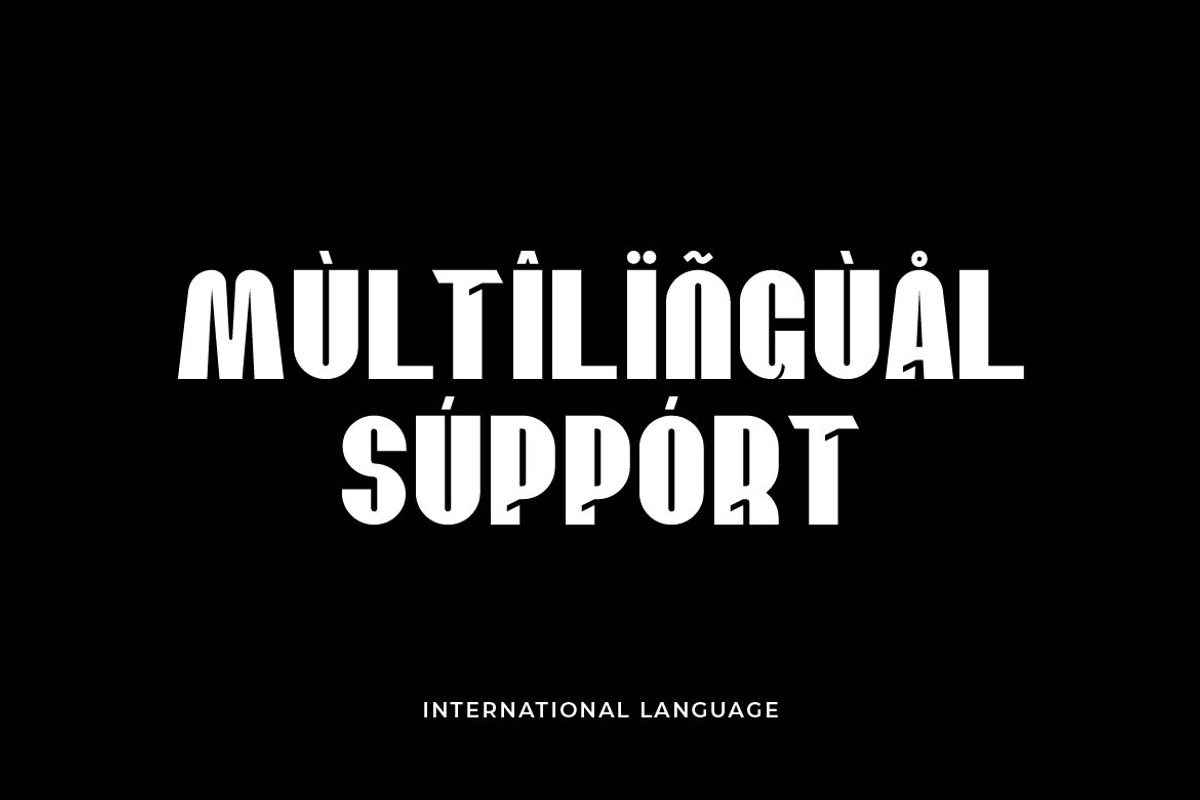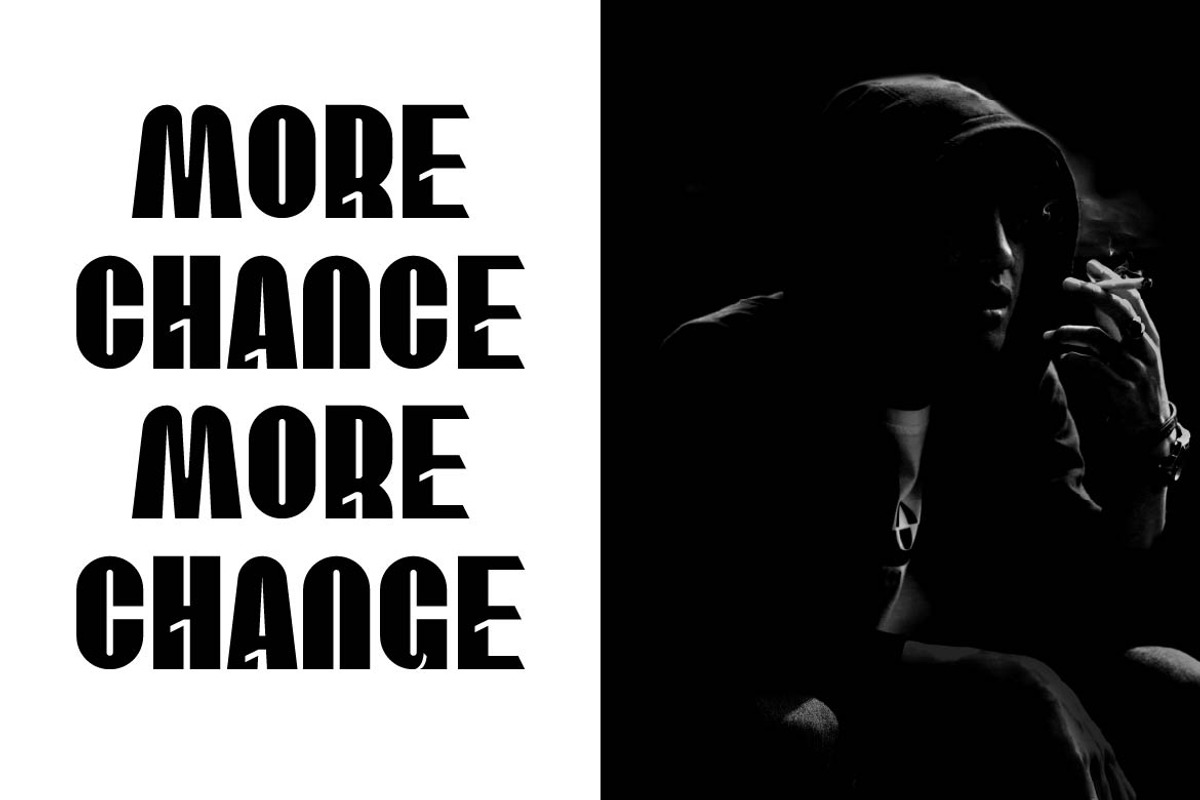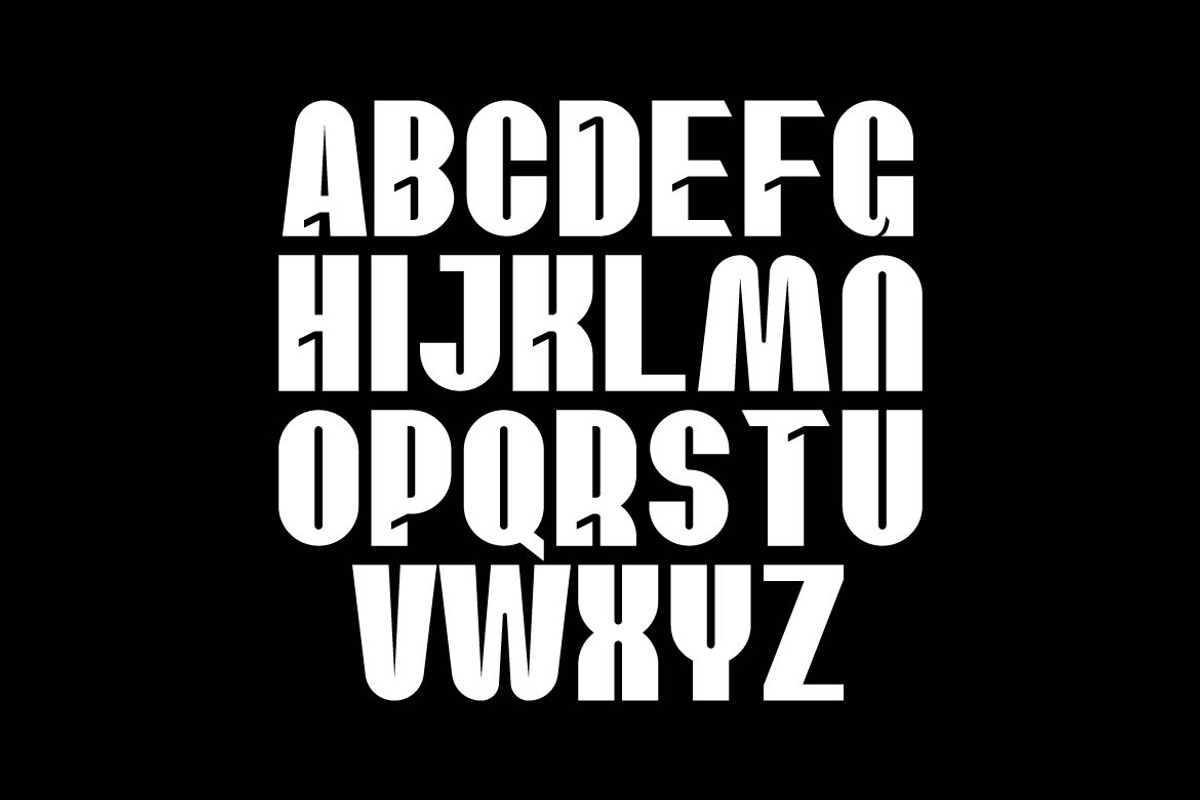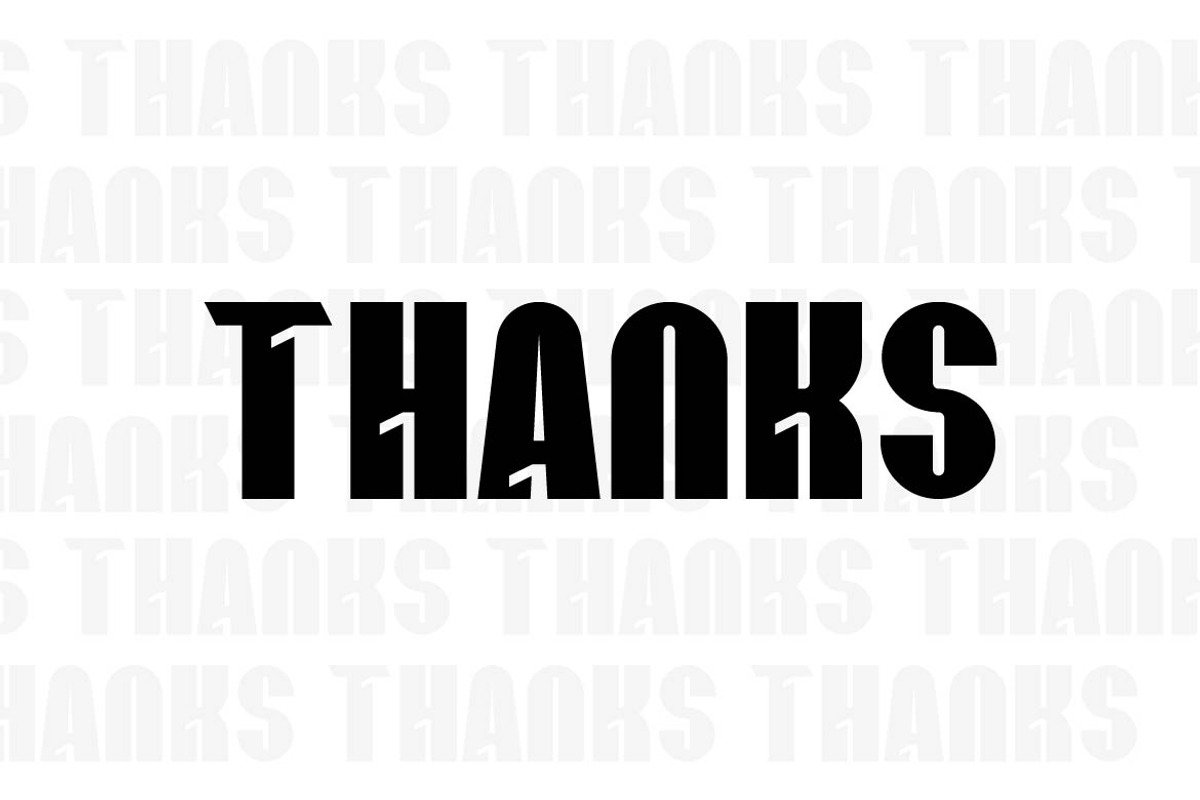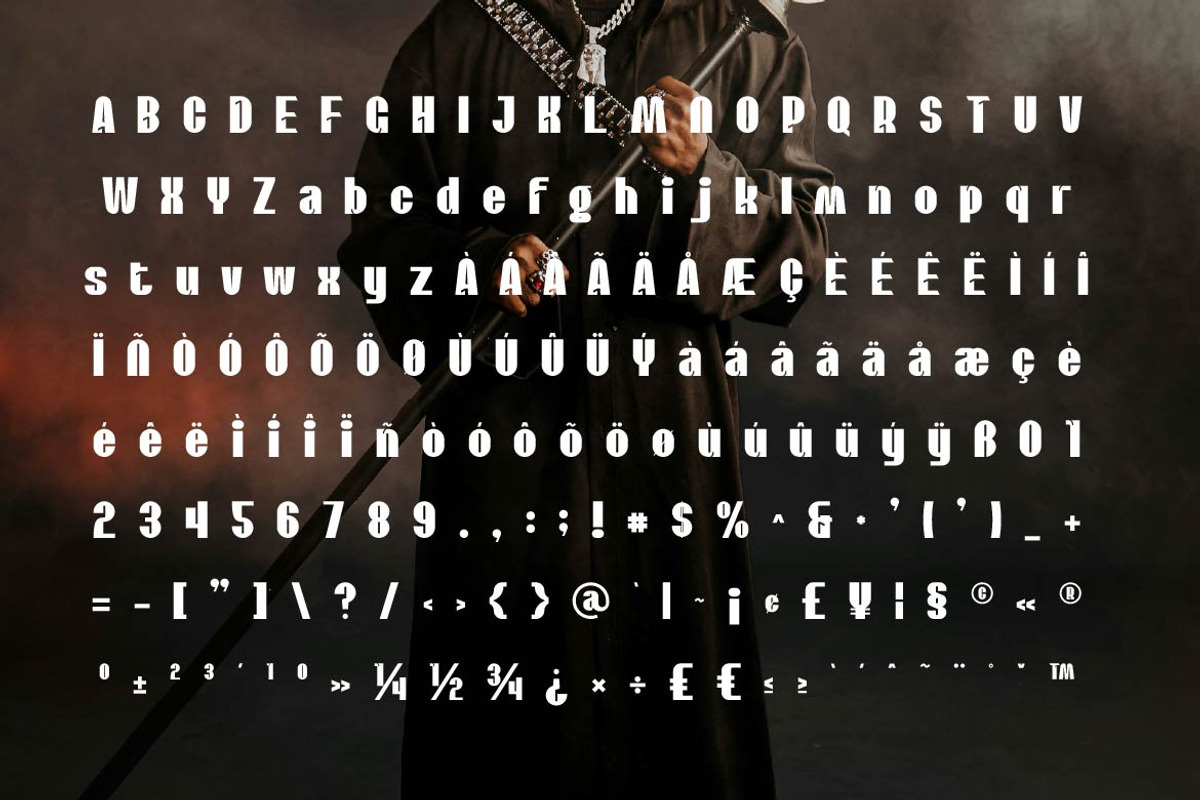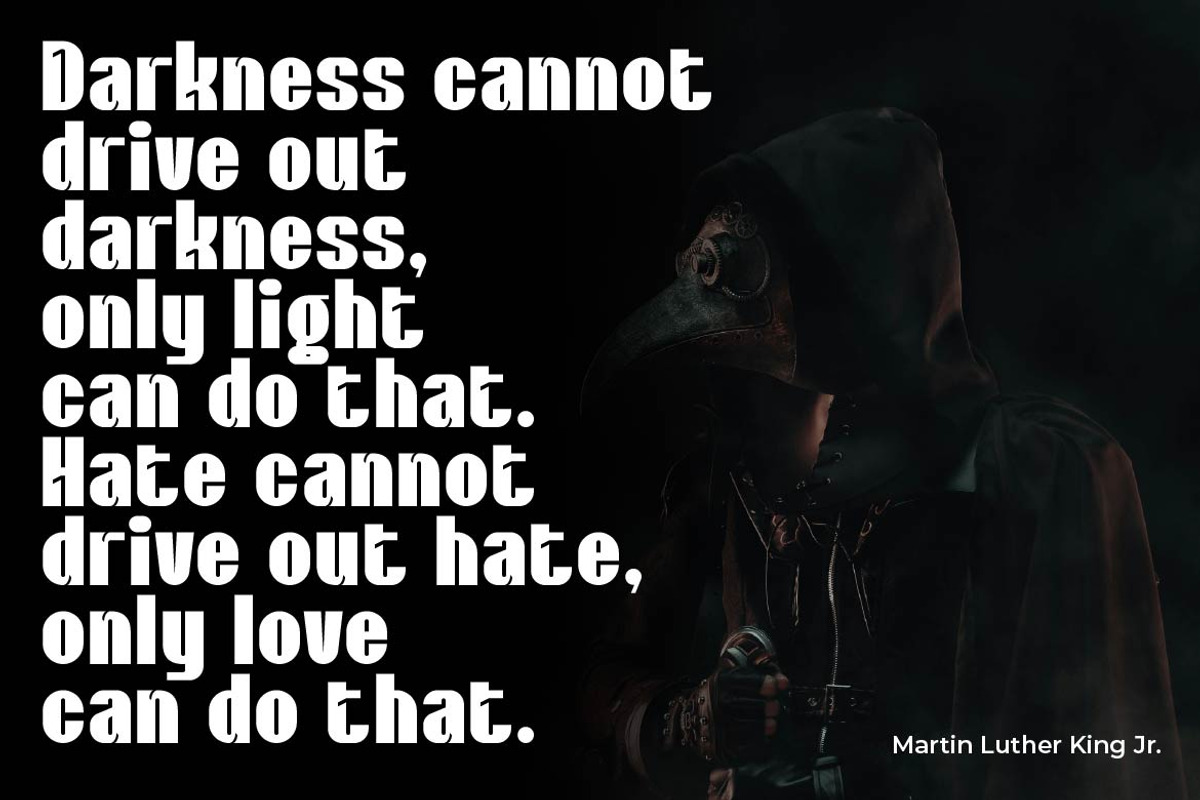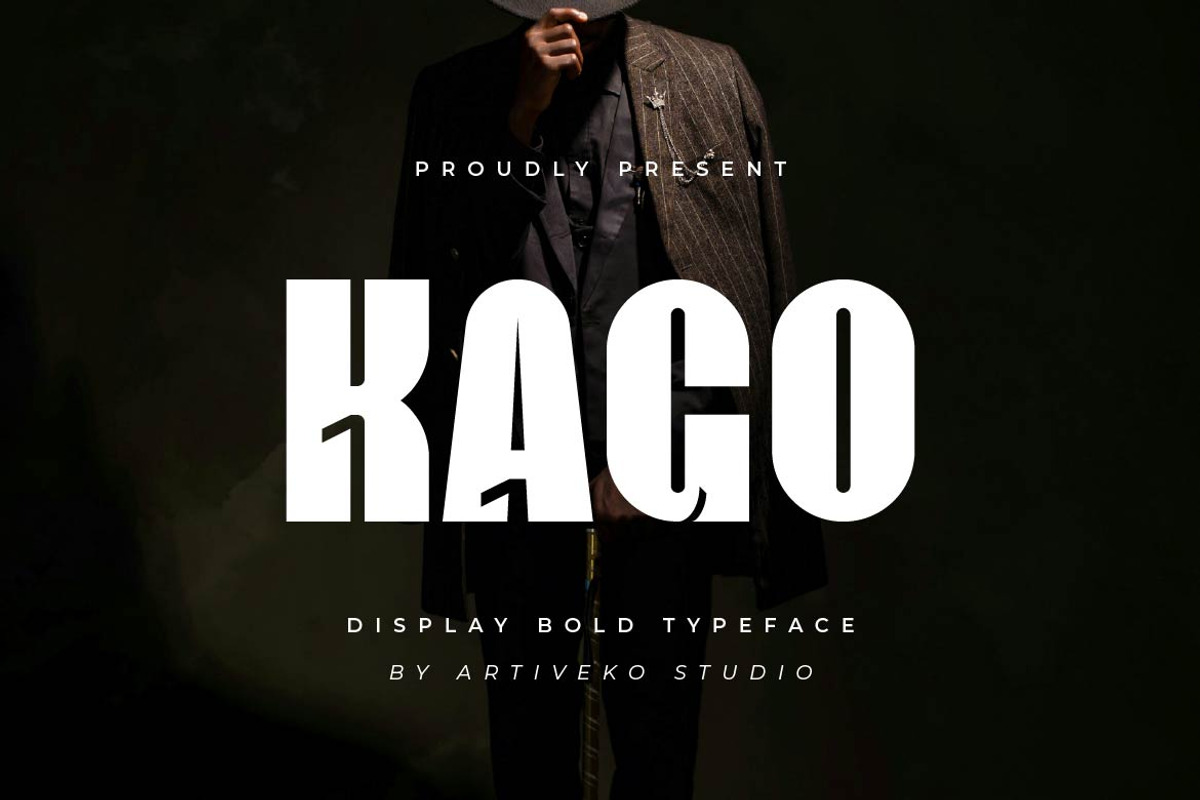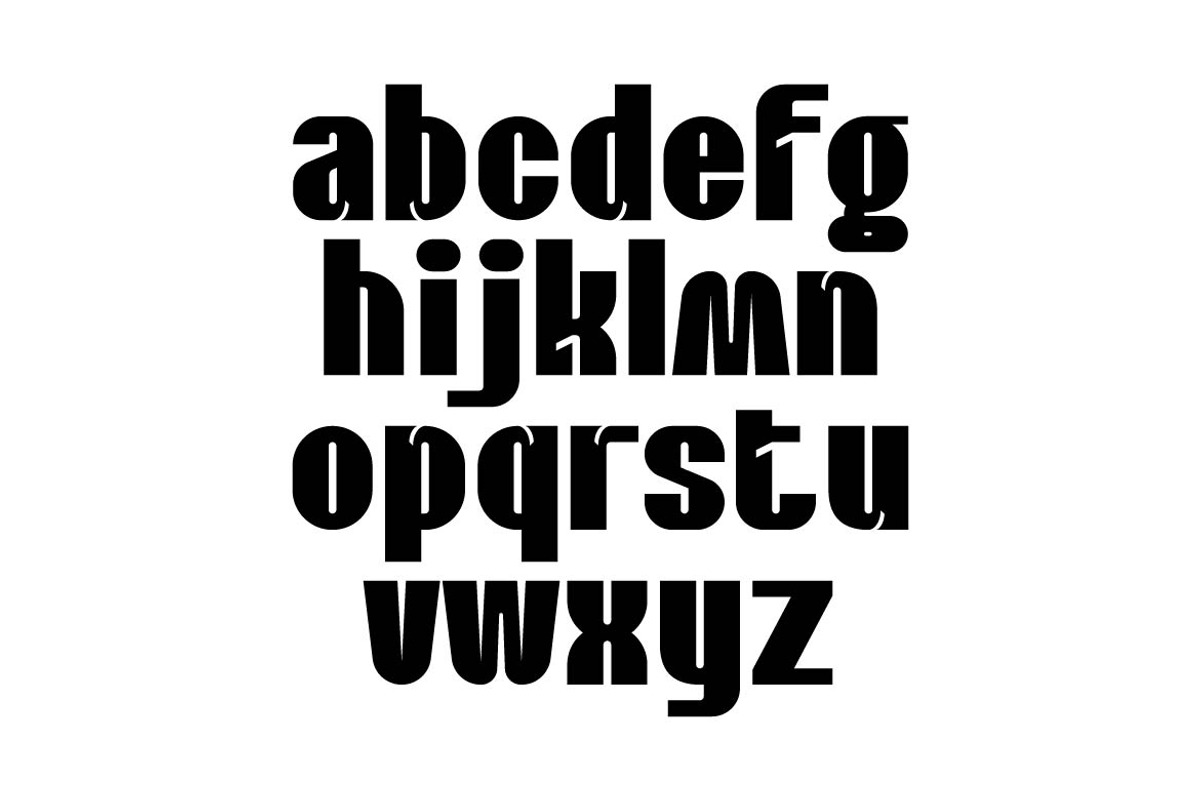
Kago – Bold Display Sans Serif
Kago is a bold display sans serif typeface designed to create strong visual impact with a clean modern aesthetic. Featuring solid letterforms, balanced proportions, and confident structure, Kago delivers powerful typography that instantly captures attention.